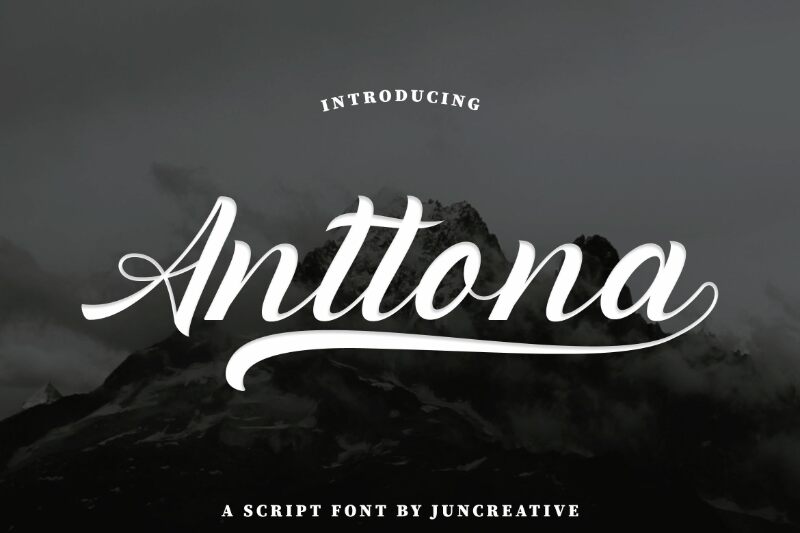
Anttona, the exquisite calligraphy font designed by JunCreative, is a must-have for any project that requires elegance and sophistication. Its intricate details and smooth curves make it perfect for wedding invitations, luxury branding, and high-end editorial designs. The semi-bold font weight of Anttona adds just the right amount of personality without taking away from the overall elegance of the design. Whether you're designing a logo for a luxury fashion brand or creating an invitation to an exclusive gala event, Anttona is the ideal typeface to elevate your design to new heights.